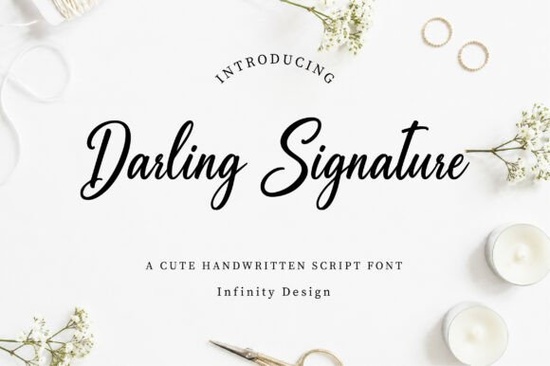
Designers, crafters, and small business owners often look for fonts that add a personal touch to their work. The Darling Signature Font is one such typeface that brings a warm, handwritten feel to any project. Whether you're creating wedding invitations, logos, or social media graphics, this script font offers a refined and elegant look that stands out.
Handwritten fonts like Darling Signature are especially popular in the world of branding and creative design. They give a sense of authenticity and individuality that more rigid, mechanical fonts can't match. This font is ideal for those who want to convey a romantic or intimate vibe in their work. Its flowing curves and graceful strokes make it easy to use in a variety of contexts, from packaging to digital illustrations.
If you're working on a project that requires a personal and sophisticated touch, Darling Signature could be the perfect choice. It’s designed to look natural, as if it were written by hand, which adds a unique character to your designs. This makes it a great option for print-on-demand sellers, wedding planners, and anyone involved in custom graphic design.
How to Use Darling Signature Font in Your Projects
One of the best things about Darling Signature is its versatility. You can use it in both digital and print formats, making it suitable for a wide range of applications. For example, it works well on social media posts, where a handwritten style can make your content stand out. It also pairs nicely with other fonts, allowing you to create balanced and visually appealing layouts.
When using this font, consider the context of your design. For instance, if you're creating a logo, you might pair it with a more structured font to add contrast. If you're designing a quote or a greeting card, the font can be used on its own to create a soft, elegant effect. Experimenting with different sizes and placements can help you find the best way to incorporate it into your work.
Why Choose Darling Signature Over Other Script Fonts?
While there are many script fonts available, Darling Signature has a few key features that set it apart. Its smooth, natural flow gives it a more authentic feel compared to some other options. It also includes a wide range of characters, making it suitable for multiple languages and projects. This makes it a practical choice for designers who work with international clients or need flexibility in their typography.
Another advantage is that it’s easy to read, even at smaller sizes. This is important for anything that needs to be legible, such as product labels or website headers. Unlike some script fonts that can be difficult to read, Darling Signature maintains clarity without sacrificing style.
If you’re looking for a script font that feels personal and elegant, Darling Signature is definitely worth considering. It’s a versatile tool that can enhance your creative work in many ways. Whether you're designing for a client or working on a personal project, this font can help you achieve a polished and professional look.
Before you start using Darling Signature, make sure to test it in different sizes and settings to see how it looks in your specific project. You may also want to explore how it pairs with other fonts to create a cohesive design. With a little experimentation, you’ll be able to make the most of this beautiful script font.
Try using Darling Signature in your next design project and see how it transforms your work. Whether you're creating something for a client or just for fun, this font can add a special touch that sets your design apart.